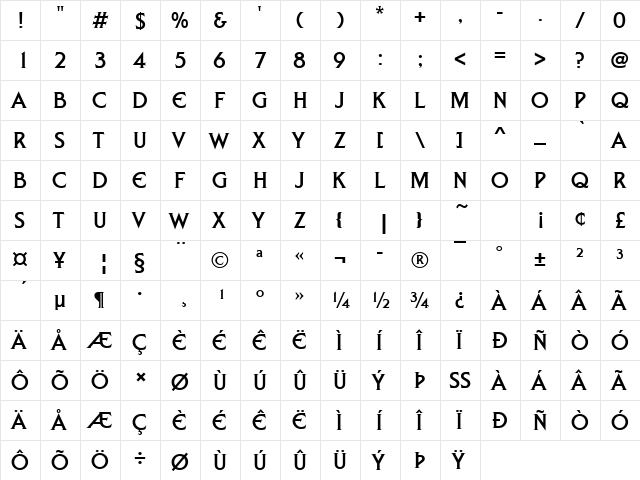
LibertyD Regular Font Preview
LibertyD Regular
LibertyD Regular Font Details
Design Context for LibertyD Typeface
LibertyD is a composed and adaptable typeface that performs quietly and consistently across a wide range of design contexts.